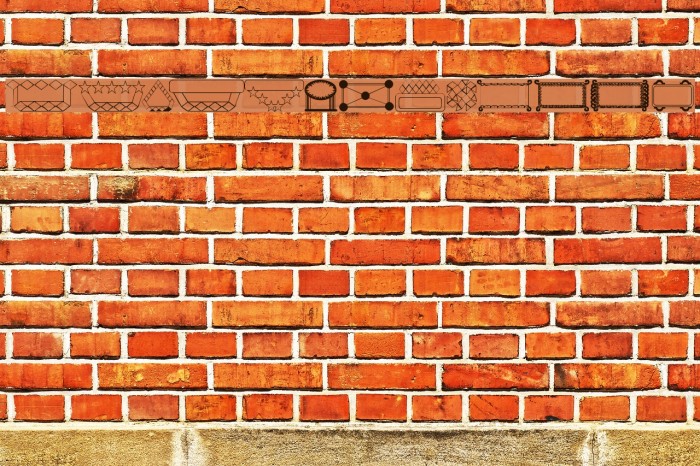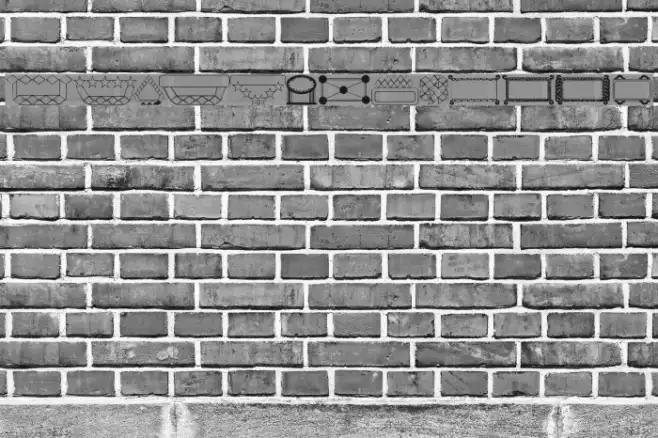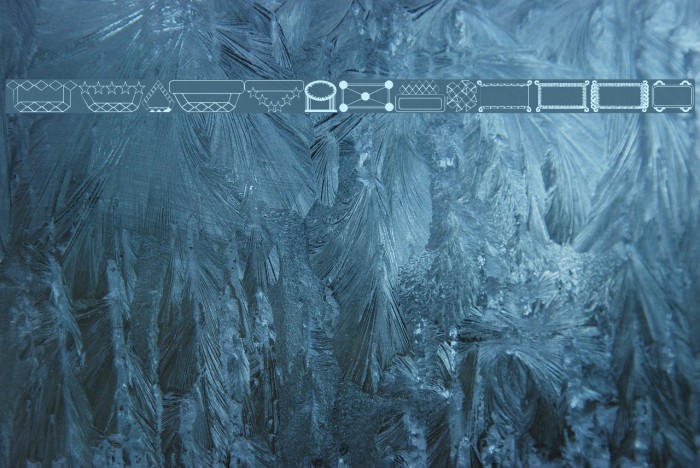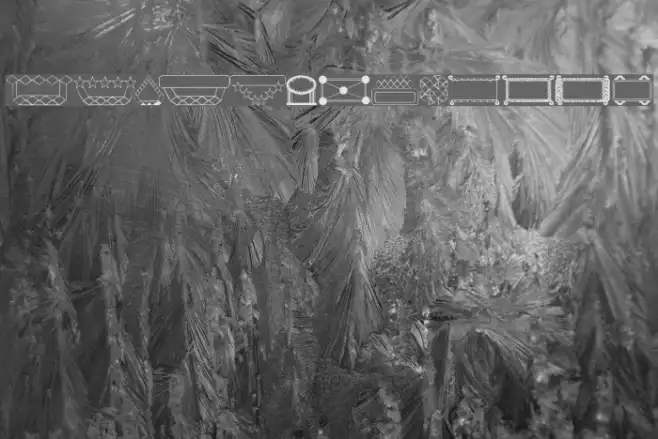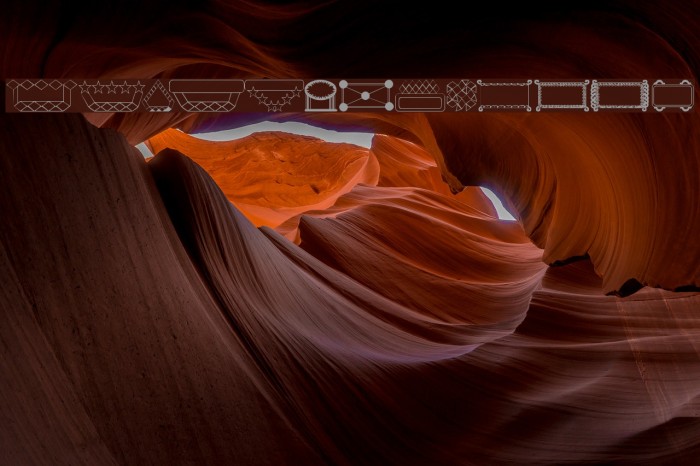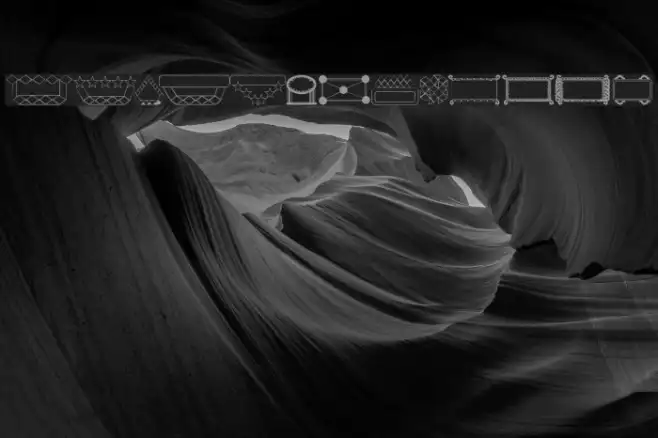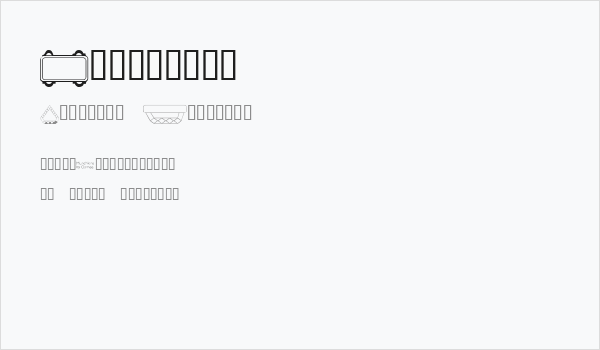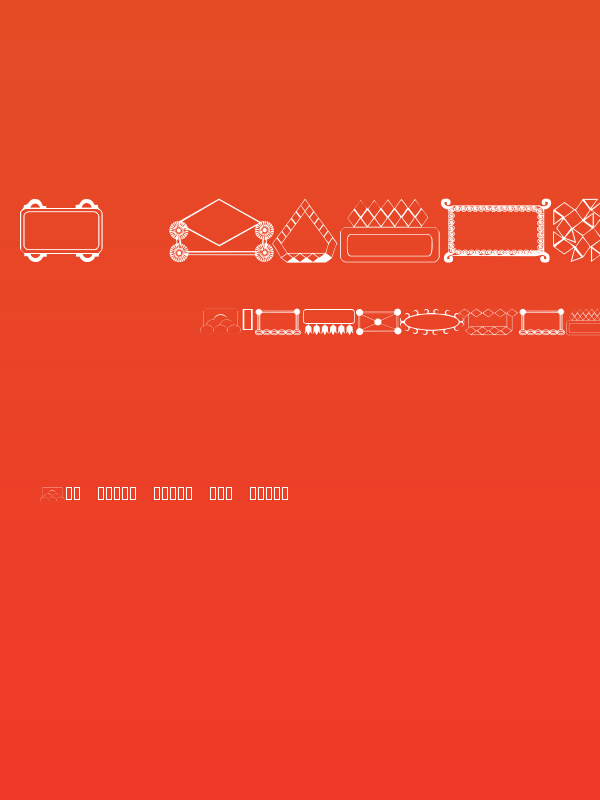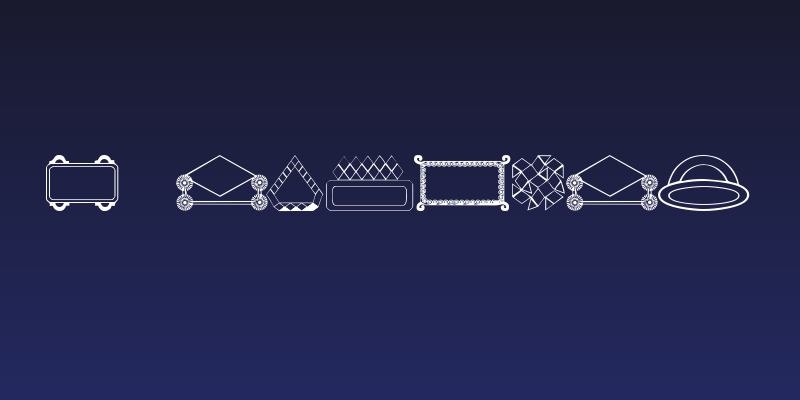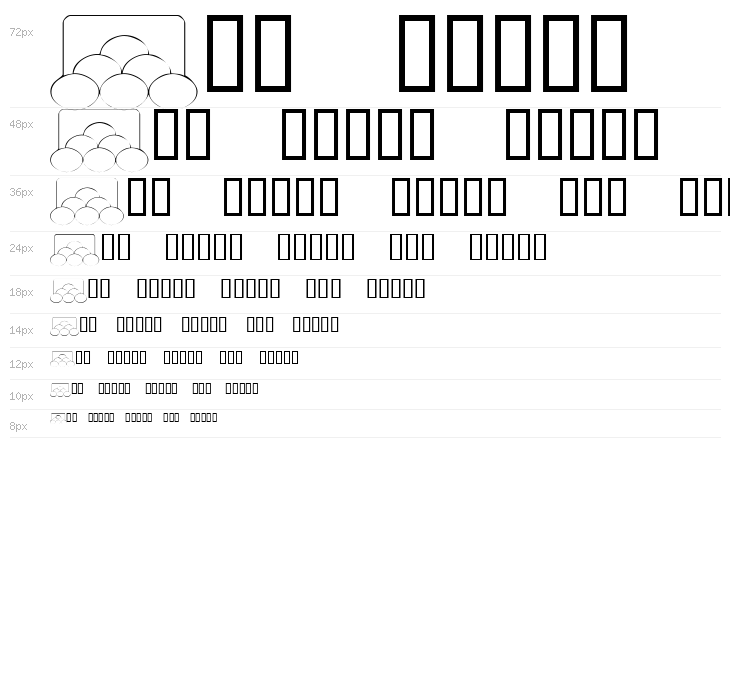
Munchkins Font
Munchkins Description
This design is a decorative and playful collection of frames and borders, each with unique patterns and embellishments. The elements range from geometric shapes to more ornate and intricate designs, featuring a mix of straight lines, curves, and decorative motifs. The style is whimsical and imaginative, making it suitable for creative projects that require a touch of fantasy or a handcrafted feel. The bold outlines and varied patterns offer a dynamic visual appeal, perfect for adding emphasis or framing content in a distinctive way.
| Use Case | Borders, Frames, Decorative elements |
| Proposed Projects | Ideal for scrapbooking, greeting cards, invitations, and creative digital designs. |